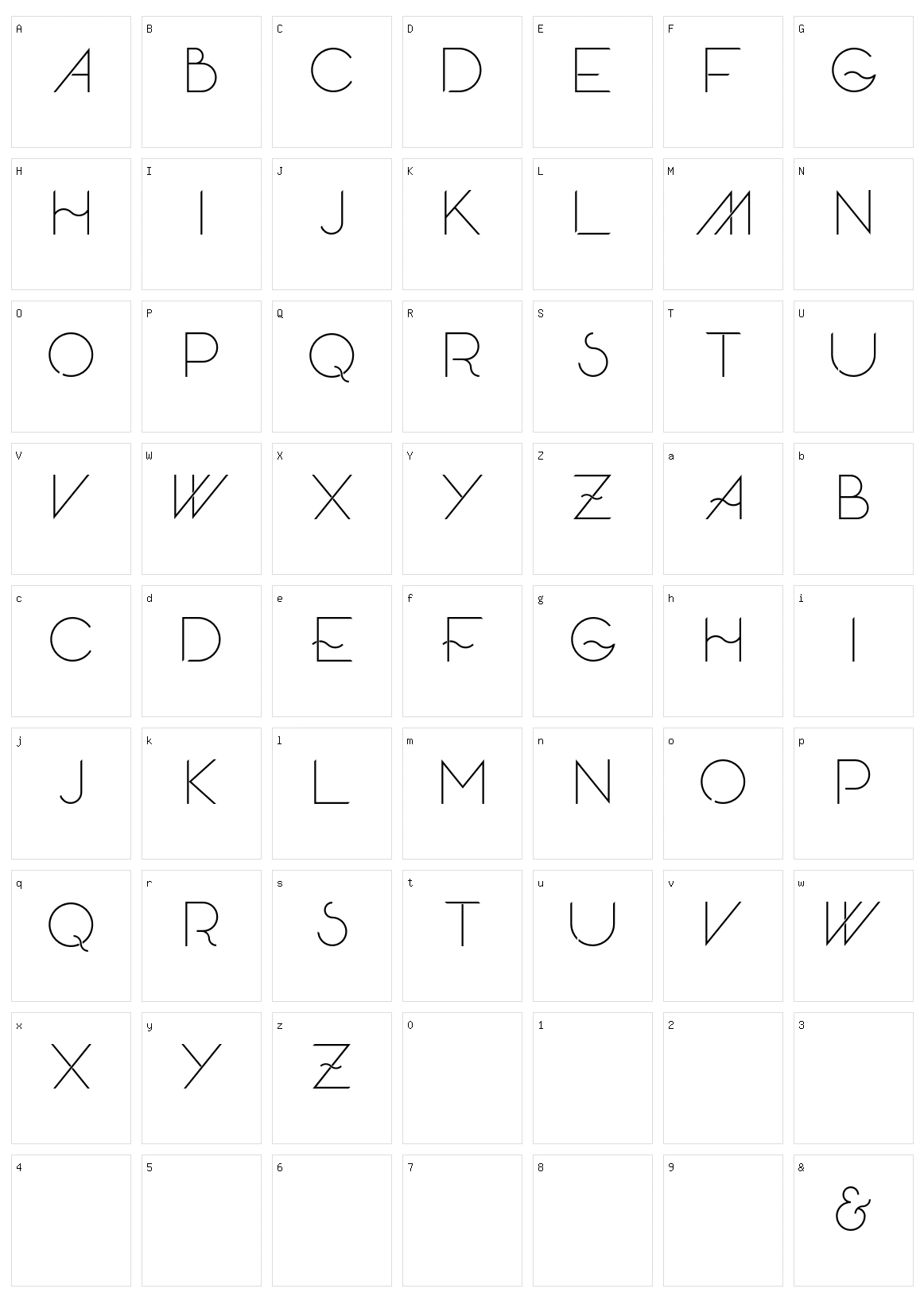
Skandar
The Skandar font is perfect to write titles, names and make posters. It has some alternate characters, just look for them. It is kerned, but if you see any error, please, sorry.